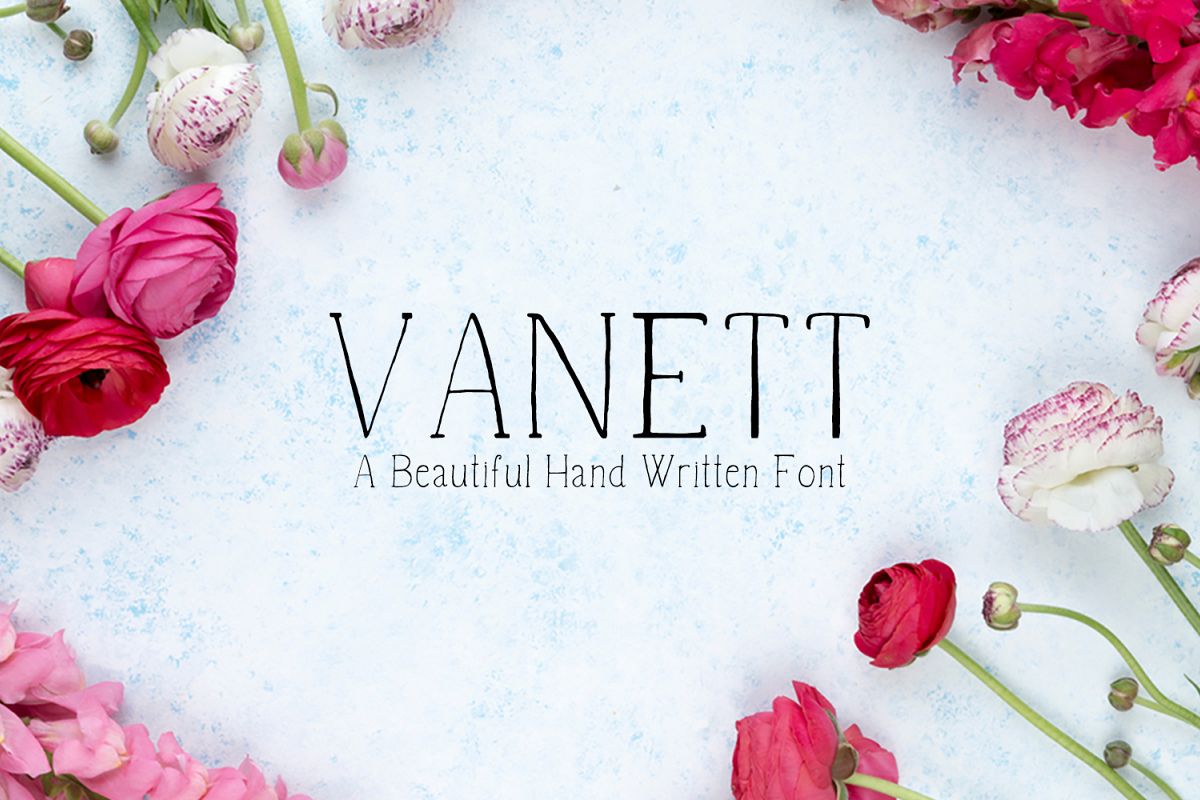
Vanett A Beautiful Handwritten Font
Vanett is a handwritten script font containing uppercase, lowercase characters, numerals, punctuation and alternatives. This font can always be the right choice for a lot of creative works like handwritten quotes, logo projects, merchandise, social media posts, displays, headers, invitations, save the dates, weddings, titles, product packaging, etc.